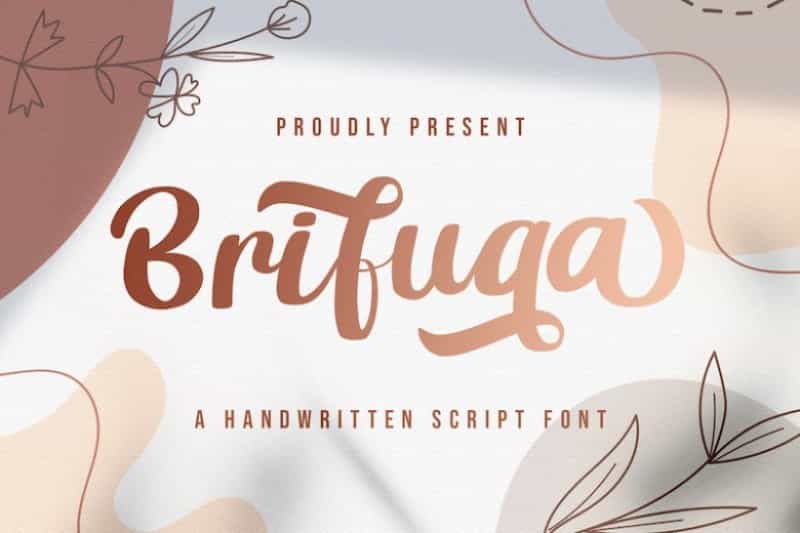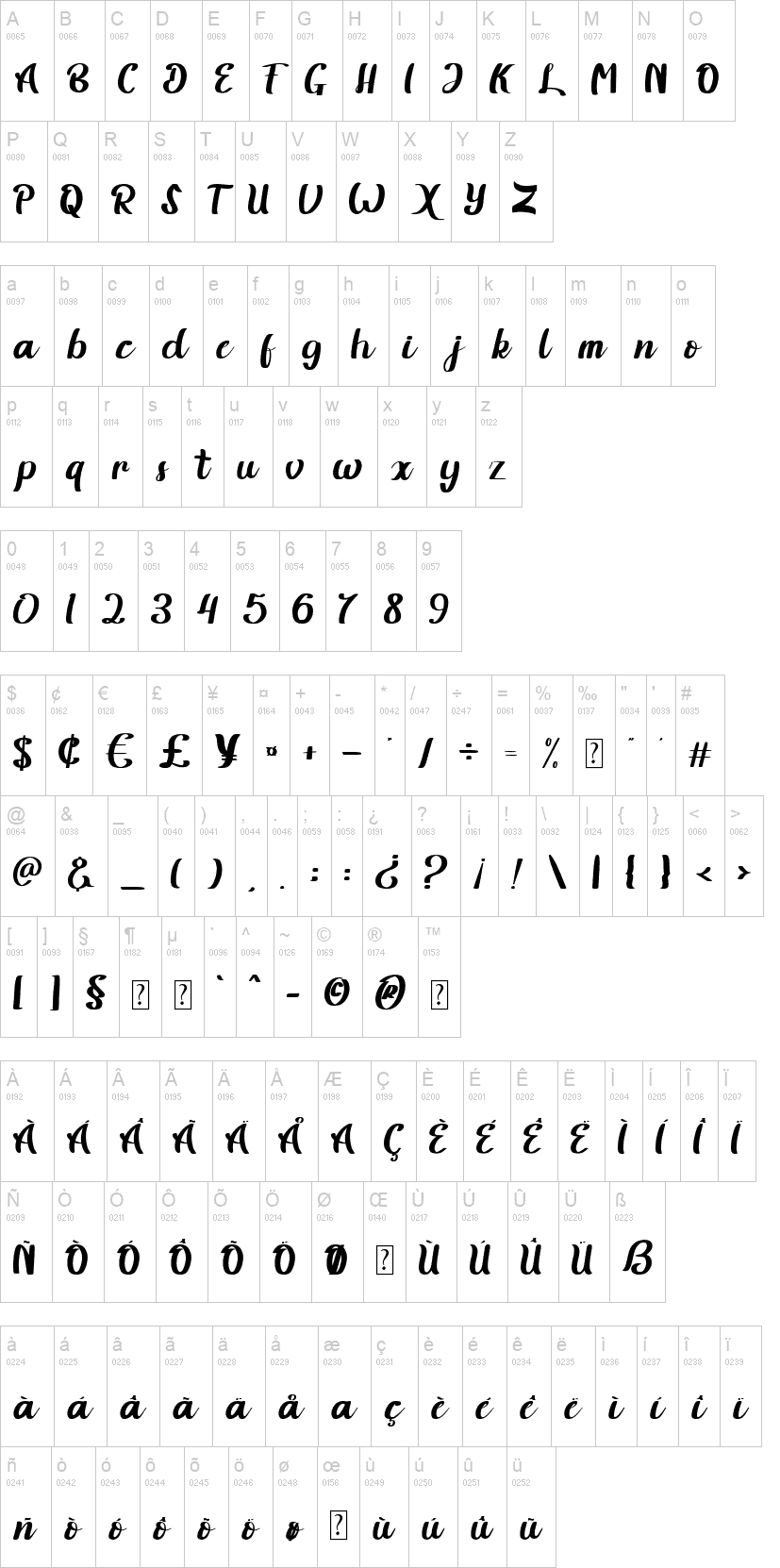
Brifuqa script font is finely and beautifully hand done for the making of any website, and for brand banners on Pinterest and printed invitations too! Brifuqa will not let your customers, audience, guests or anyone who interacts with it down!